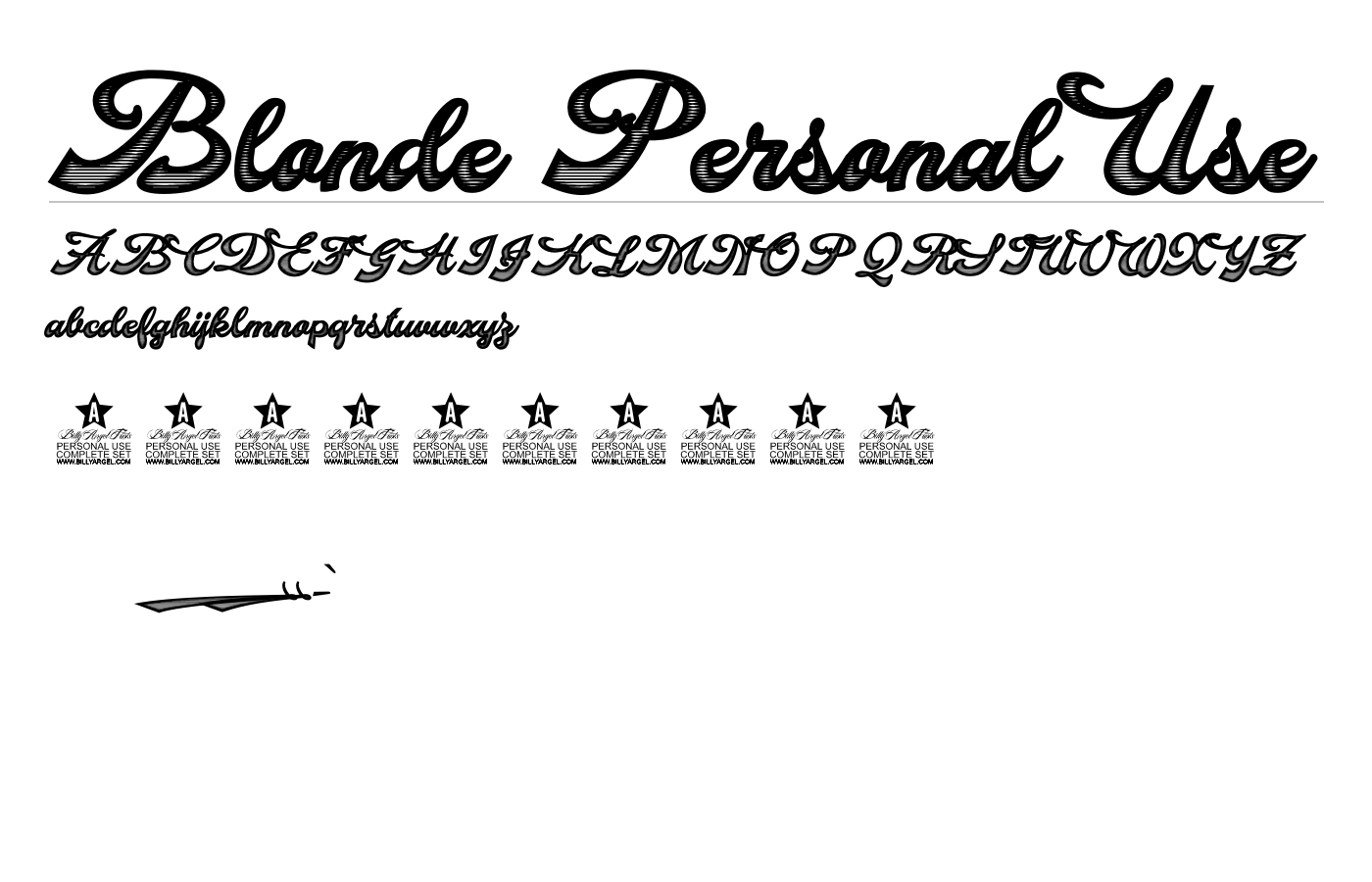
Blonde Personal Use is a stylish script font featuring elegant, flowing letterforms with a bold weight and distinctive horizontal shading that adds texture and depth. Its vintage-inspired design exudes a classic, sophisticated charm, making it ideal for branding, logos, and invitations where a touch of personality and refinement is desired. This font works well in display settings, capturing attention with its unique blend of boldness and scripted flair.
Blonde Personal Use Font
About Blonde Personal Use Font